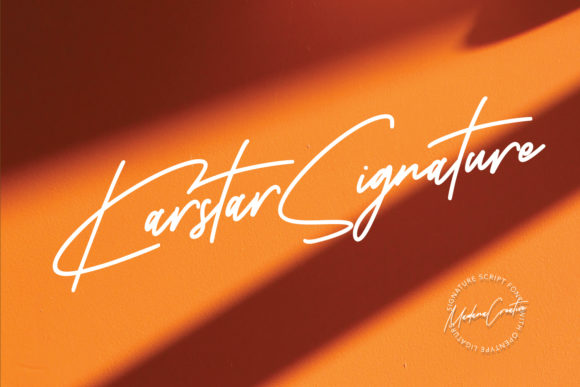
Karstar Signature: Elevate Brand Visuals With Timeless Handwritten Typography
When designing scroll-stopping visuals for social media campaigns, the choice of typeface is often the difference between a user scrolling past and stopping to engage. Karstar Signature stands out as an incredibly distinct, delicate and timeless handwritten font that brings a human touch to digital marketing materials. For content creators and brand managers seeking to establish immediate emotional connections with their audience, this script font offers a sophisticated solution that bridges the gap between traditional elegance and modern digital consumption.
Karstar Signature for Wedding Invitations and Elegant Branding
The versatility of Karstar Signature makes it a premier choice for industries where aesthetics and personal connection are paramount. While it looks stunning on wedding invitations, thank you cards, quotes, greeting cards, logos, business cards and every other medium requiring a personal touch, its application extends far beyond stationery. In the realm of digital branding, using Karstar Signature allows businesses to convey luxury, care, and exclusivity. When launching a premium product line or curating a high-end lifestyle brand, the delicate strokes of this script font signal quality without shouting. It transforms standard digital assets into curated experiences, ensuring that your brand identity feels bespoke and carefully crafted rather than generic.
Karstar Signature in Social Media Graphics and Reels Covers
In the fast-paced environment of Instagram, TikTok, and Pinterest, visual hierarchy determines click-through rates. Karstar Signature serves as a powerful tool for creating eye-catching headlines on social media graphics. Because it is a display font with significant personality, it commands attention when used for short text, titles, or callouts. Imagine a reel cover featuring a bold, elegant title in Karstar Signature overlaid on a minimalist background; the contrast creates instant intrigue. For quote graphics or inspirational posts, the handwritten nature of the font adds authenticity, making the message feel like a personal note from the brand. This approach fosters deeper engagement, as audiences are more likely to interact with content that feels human and relatable rather than corporate and sterile.
Karstar Signature for YouTube Thumbnails and Video Content
For YouTubers and video marketers, thumbnails are the first point of contact with potential viewers. Karstar Signature can be instrumental in crafting thumbnails that stand out in crowded feeds. Its distinct character ensures legibility even at smaller sizes, provided it is paired correctly. Use Karstar Signature for the main hook or title of the video, such as "Exclusive Behind-the-Scenes" or "My Honest Review." The elegance of the script suggests a higher production value, encouraging clicks. However, readability is key; ensure sufficient contrast between the white or light-colored script and the background image. By combining this creative font with strong imagery, creators can boost their click-through rate (CTR) and drive more organic traffic to their channels.
Karstar Signature in Email Marketing and Digital Ads
Email open rates and ad performance rely heavily on the perceived value of the offer. Karstar Signature enhances the visual appeal of email headers, promotional banners, and digital ads by adding a layer of sophistication. When announcing a sale, a new product launch, or a seasonal promotion, using Karstar Signature for the headline draws the eye immediately. It works exceptionally well for limited-time offers or exclusive member discounts, as the font implies rarity and special treatment. For instance, a banner ad for an online shop could feature "VIP Access" in Karstar Signature, creating a sense of urgency and privilege. This strategic use of typography helps guide the viewer’s gaze toward the call-to-action button, improving conversion rates across various campaign types.
Karstar Signature for Logo Design and Brand Identity
Building a memorable brand identity requires consistent and distinctive visual elements. Karstar Signature is an excellent option for logo design, particularly for small businesses, boutiques, and personal brands that want to emphasize craftsmanship or artisanal quality. The font’s delicate lines convey precision and attention to detail, traits that resonate with consumers looking for authenticity. When incorporated into a logo mark or wordmark, Karstar Signature can serve as the focal point of the brand’s visual language. It pairs well with clean sans serif fonts for subtitles or taglines, creating a balanced composition that is both modern and classic. This combination ensures that the brand remains recognizable across different platforms, from website footers to packaging design.
Karstar Signature Font Pairing Strategies for Web Design
To maximize the impact of Karstar Signature, strategic font pairing is essential for maintaining readability and visual harmony. As a Script Handwritten font, it should primarily be used for accents, headings, or short phrases rather than body text. Pair Karstar Signature with a clean sans serif font for captions, descriptions, and navigation menus. The neutral nature of a sans serif font provides a stable foundation that allows the decorative script to shine without overwhelming the reader. Alternatively, for a more editorial look, pair it with a classic serif font. This combination works beautifully for blog posts, magazine-style layouts, and long-form content, where the script adds personality to section headers while the serif ensures comfortable reading. Always test these pairings across different screen sizes to ensure they remain effective on mobile devices.
Karstar Signature for Readability on Mobile and Small Screens
With the majority of web traffic coming from mobile devices, ensuring text legibility is crucial. Karstar Signature must be used judiciously to maintain clarity on smaller screens. Avoid using the font for dense paragraphs or long sentences, as the intricate details may become difficult to decipher. Instead, reserve it for headlines, subheadings, and decorative elements. When scaling the font size, ensure there is adequate letter spacing (tracking) to prevent the delicate strokes from merging. On fast-scrolling social feeds, larger font sizes and high contrast are necessary to capture attention quickly. By prioritizing readability, designers can ensure that the aesthetic benefits of Karstar Signature do not come at the cost of user experience.